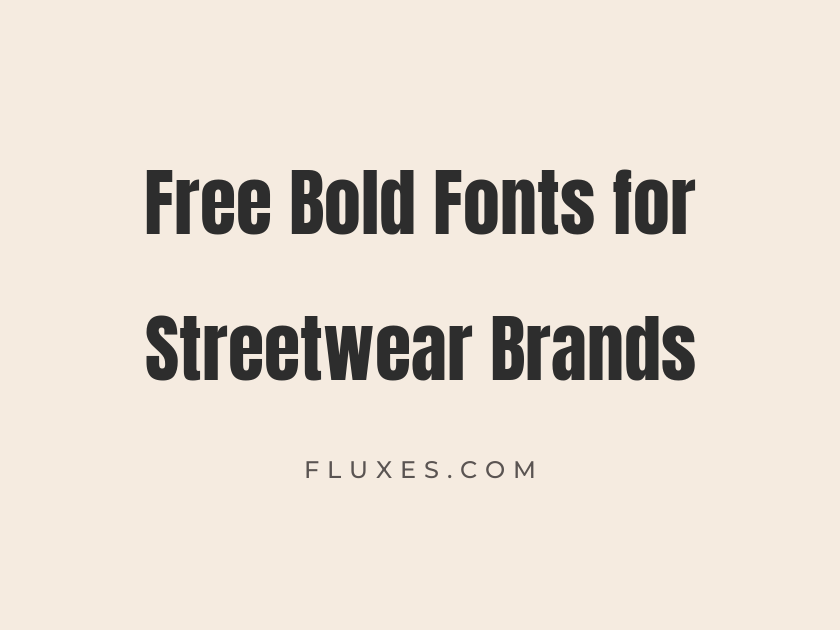
63 Best Free Bold Fonts for Streetwear Brands
Streetwear runs on attitude, and typography is half the uniform. The best free bold fonts for streetwear brands tend to share a few traits: thick strokes that read from across a room, personality that survives being screen-printed on cotton, and just enough edge to feel like it belongs on a hoodie rather than a slide deck. Every option here lives on Google Fonts, so there is no license to chase down before you drop it on a hangtag, a hype-drop landing page, or a limited-run tee.
Whether you are building a logotype from scratch, laying out a lookbook, or just need something loud for a sale banner, these bold display fonts, condensed grotesques, stencils, and spray-paint scripts cover the full range of streetwear moods, from clean athletic branding to raw graffiti energy.
Anton is the default heavyweight for a reason. Its strokes are so thick and its counters so tight that even a single word reads as a shout, which makes it a favorite for hype-drop banners and oversized back-print graphics.
Tall, narrow, and endlessly useful, Bebas Neue has become shorthand for modern streetwear branding because it packs a lot of confidence into very little horizontal space. It has no lowercase personality to speak of, but that austerity is exactly why it pairs so well with a rougher secondary typeface.
Archivo Black is a workhorse grotesque with none of the coldness that sometimes comes with corporate sans fonts. It holds up at huge sizes on a tee graphic and stays legible at small sizes on a care label, which is a rarer combination than it sounds.
Oswald in its heavier weights gives you a condensed, no-nonsense sans that feels closer to a stencil sign than a web font. It is a smart choice when a brand wants boldness without full-on chaos, since it still reads as tidy and considered.
Teko brings a slightly sportier, more angular edge than most condensed sans faces, which makes it a natural fit for anything with an athletic or varsity undertone. It is best reserved for headlines; its tight spacing gets cramped in long paragraphs.
Fjalla One is a quieter cousin to the big condensed grotesques, with a bit more warmth in its curves. It works well when a brand wants boldness that still feels approachable rather than aggressive.
Staatliches looks like it was cut from a stencil sign at a construction site, all flat edges and confident proportions. That rawness makes it a natural for streetwear logos that want to feel unpolished on purpose.
At its heaviest weight, Barlow Condensed turns from a clean utility font into a genuinely tough headline face. Its slight rounding keeps it from feeling as brutal as some competitors, which makes it a good middle ground between sporty and street.
Khand
Khand is compact, square-ish, and a little industrial, which suits logo lockups that need to sit inside a badge or patch shape. It is less known than Bebas or Oswald, so it can help a brand avoid the “everyone uses this” feeling.
Slab serifs rarely get this loud, but Alfa Slab One turns thick square feet into pure attitude. It reads almost like a stamped rubber logo, which suits streetwear brands leaning into a utilitarian, workwear-adjacent aesthetic.
Titan One is bubbly, thick, and slightly cartoonish, closer to sneaker-box lettering than anything austere. It shines on graphics aimed at a younger, more playful audience but can feel too soft for a minimalist premium line.
Bungee was built to look like urban signage, thick, chunky, and built for maximum visibility at a distance. It carries an unmistakable city energy that suits anything referencing subway signs, street numbers, or block parties.
The inline cut of Bungee keeps all that street-sign confidence but adds a layered, almost 3D outline that photographs well on merch mockups. Use it sparingly at large sizes since the inner detail can clog up on small labels.
Bungee Shade bakes in a long, hard-edged drop shadow that gives flat digital graphics a surprising amount of depth. It is a strong choice for a hero graphic on a drop page where you want one word to carry real weight.
Bungee Spice
Bungee Spice layers a warm two-color gradient into the same bold street-sign letterforms, giving it a graffiti-adjacent, almost sticker-bomb feel. It is a niche pick best used as an accent rather than body copy.
Finally, test everything on the actual substrate. A font that looks sharp on screen can blur on a screen-printed tee or lose detail when embroidered, so mock up real garments before locking in a typeface.
With this many bold, genuinely free options on Google Fonts, there is little reason to reach for a paid alternative when building a streetwear identity. Mix a heavyweight hero face with a calmer supporting font, keep the rest of the system simple, and the type alone can carry a lot of the brand’s attitude.